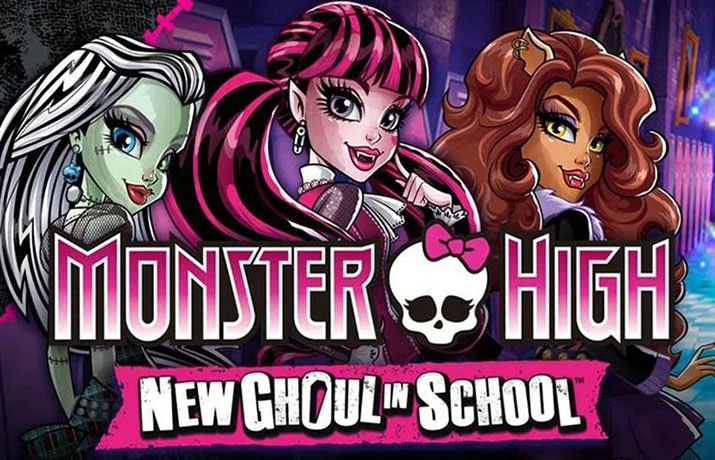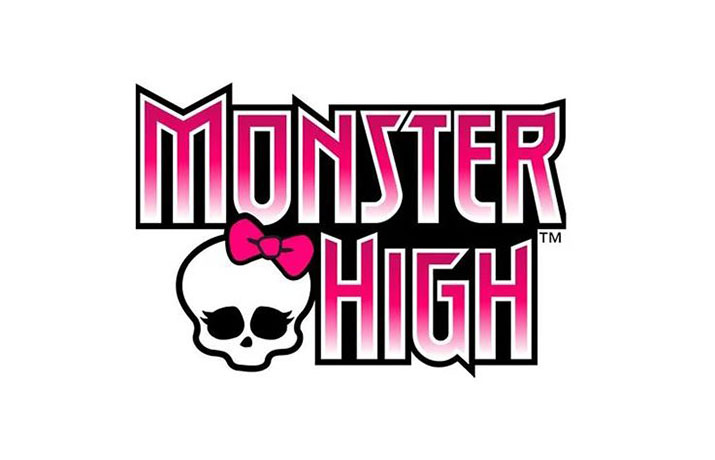
Monster High Font is a logo typeface basically, Monster High is an American multimedia-supported fashion doll franchise created by toy designer Garrett Sander and launched by Mattel in 2010.
Monster movies, sci-fi horror thriller fiction, etc mainly inspire characters of Monster High. The franchise soon became very popular among children and was highly successful in terms of Mattel’s earnings.
In its third year of existence, it was worth $1 billion with annual sales of over $500 million and was North America’s second best-selling doll brand.
“The font used in the Monster High logotype is very similar to Runy Tunes Revisited which Nick’s Fonts designed. It comes in a single style that contains 216 glyphs and 547 binary stored kerning pairs.”